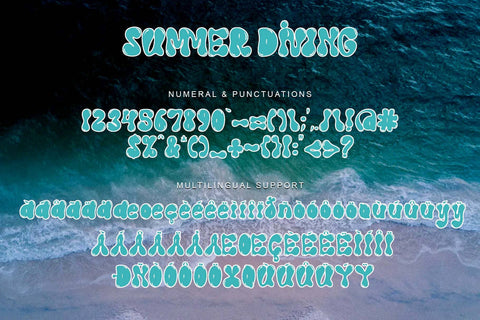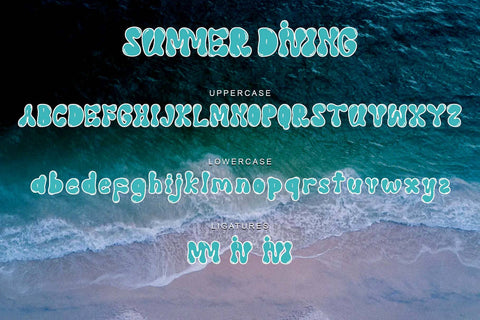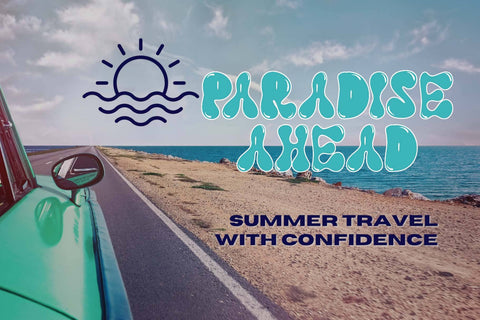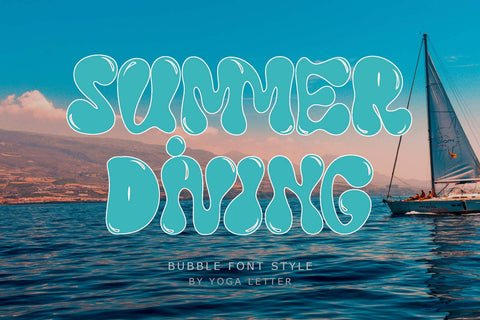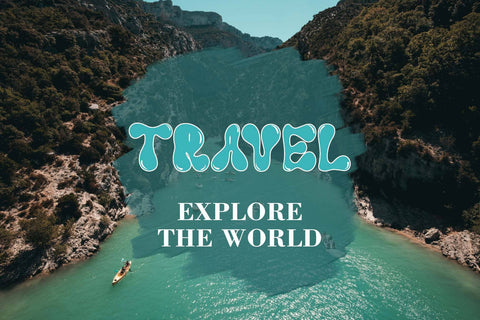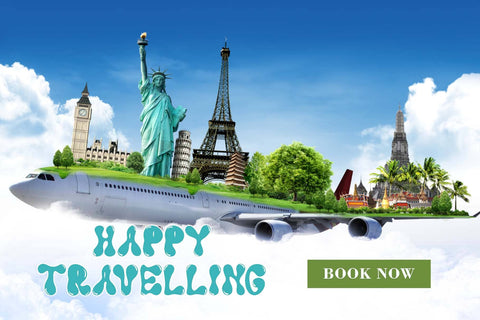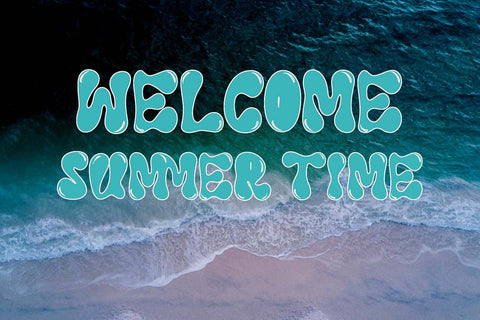
Summer Diving
"Summer Diving" is a unique bubble font created with great care. This font is equipped with uppercase, lowercase, numerals, punctuations, ligatures and multilingual support. Very suitable for summer, bubbles, cartoons, film titles, book titles, comics, and others.